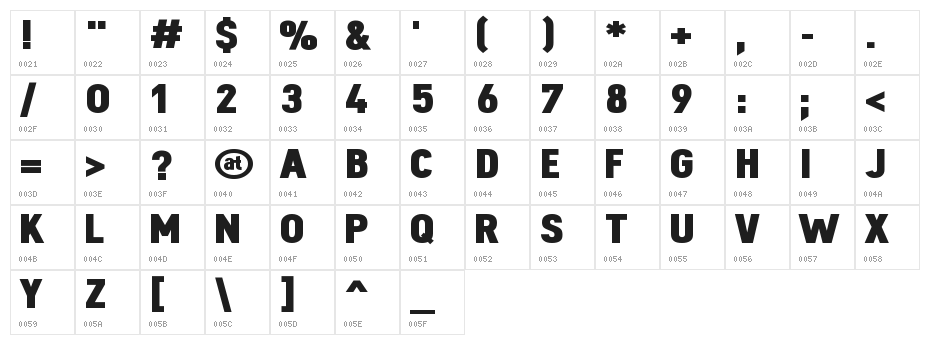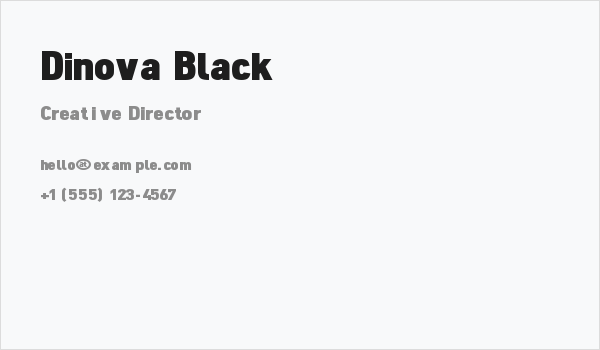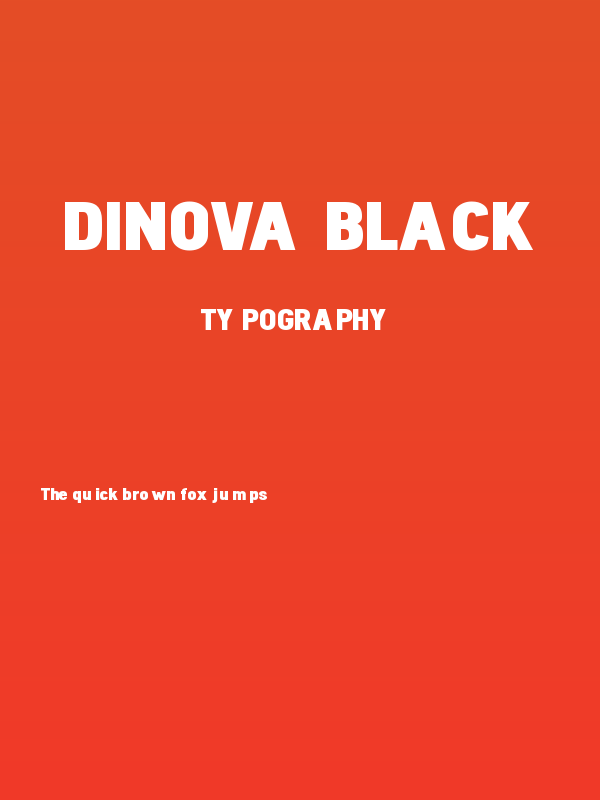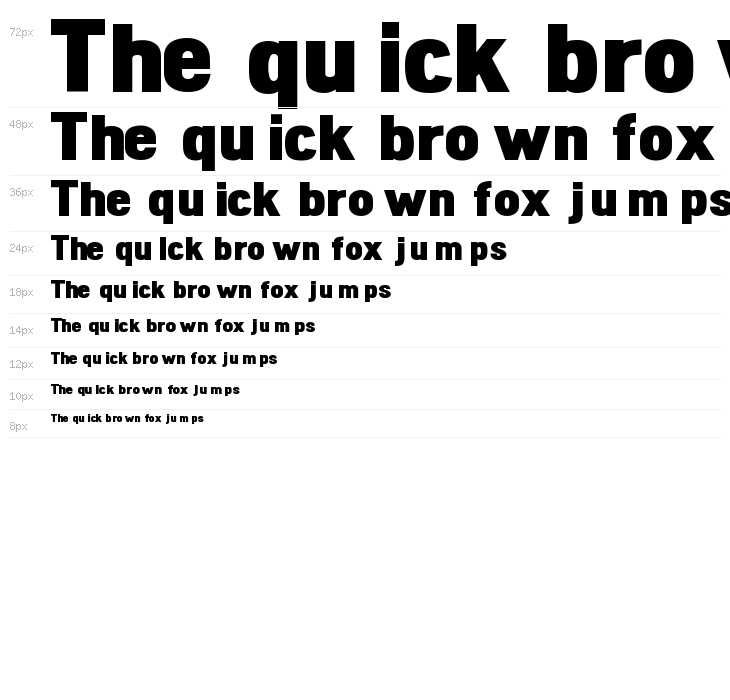
Dinova Black Font
Dinova Black Description
This font exhibits a bold and impactful style, characterized by thick, uniform strokes that convey strength and clarity. The uppercase and lowercase letters maintain a consistent weight, enhancing readability and making a strong visual statement. The numerals are equally robust, ensuring they stand out in any context. Special characters are designed with the same boldness, providing a cohesive look across all glyphs. The overall design is modern and assertive, suitable for projects that require a commanding presence.
| Proposed Projects | Ideal for headlines, posters, branding, and any design that requires a bold statement. |